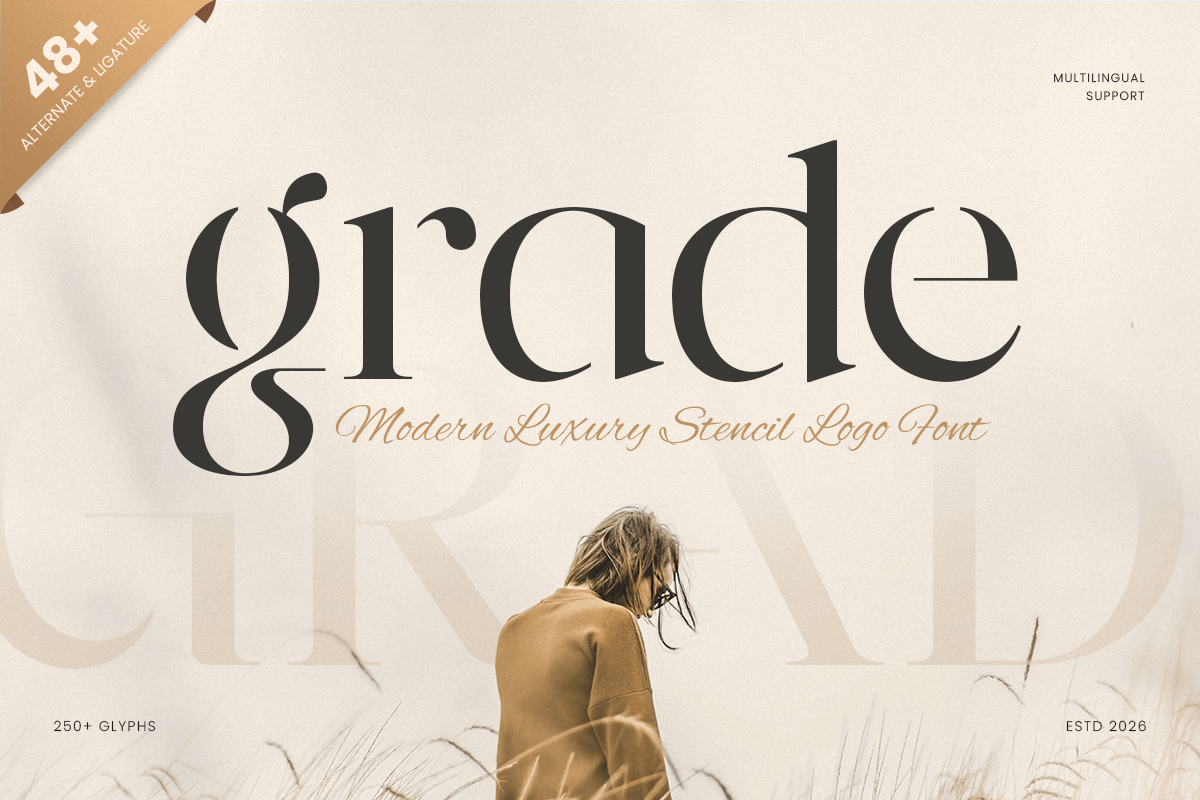
Grade
-Modern Luxury Stencil Logo Font
Grade - Modern Luxury Stencil Logo Font
Grade is a modern luxury stencil logo font crafted to deliver premium elegance with a sharp, cut-out attitude. Combining refined proportions with distinctive stencil breaks, this typeface creates a high-end visual tone that feels bold, exclusive, and instantly recognizable.
Designed for statement branding, Grade works beautifully across logos, wordmarks, packaging, labels, website headers, posters, signage, presentations, and modern marketing visuals. The stencil detailing adds a crafted, editorial edge—helping your typography look more unique and high-impact while staying clean and readable across digital and print layouts.
Whether you’re building a luxury brand identity with an industrial twist, creating premium product packaging, or designing bold headline systems for modern campaigns, GRADE provides a stylish stencil foundation that makes every word feel confident, polished, and unforgettable.
Inspiration Behind Grade
Grade is inspired by modern luxury identity systems and contemporary stencil typography—where precision cuts meet elegant structure. The design focuses on clean geometry, balanced spacing, and upscale contrast to support premium branding that feels modern, edgy, and sophisticated.
Grade Font Features:
• Modern luxury stencil letterforms optimized for logo and wordmark design
• Distinctive cut details for a bold, premium visual signature
• Clean structure with strong readability for headlines and branding
• Luxury logos, wordmarks, and premium brand identity systems
• High-end packaging, labels, and modern product branding
• Posters, headlines, campaigns, and bold promotional layouts
• Signage, presentations, website headers, and digital banners
• Modern editorials and premium marketing visuals with an edgy twist
Give your branding a premium edge with Grade—a modern luxury stencil logo font made for bold, high-end identity design. ✨